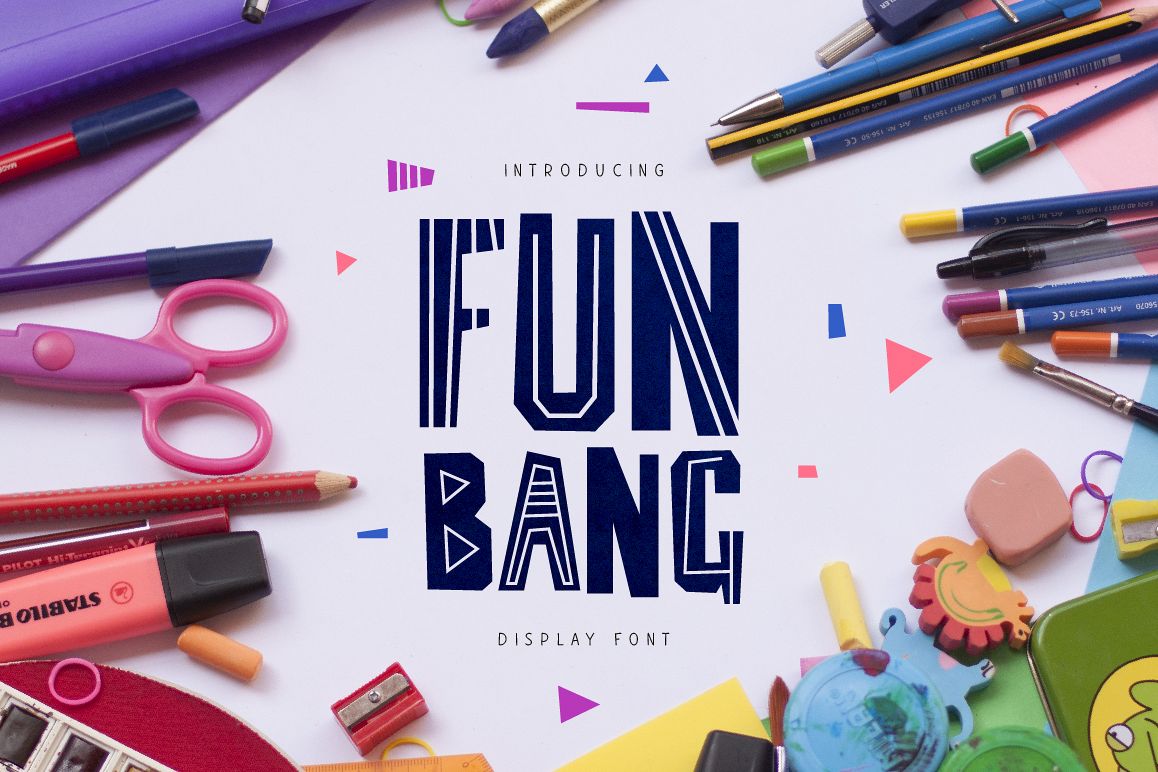
Fun Bang
Fun Bang is a funny geometric font. It comes with all caps uppercase and lowercase characters, large range of punctuation, numerals, ligatures, cyrillic characters and multilingual support.